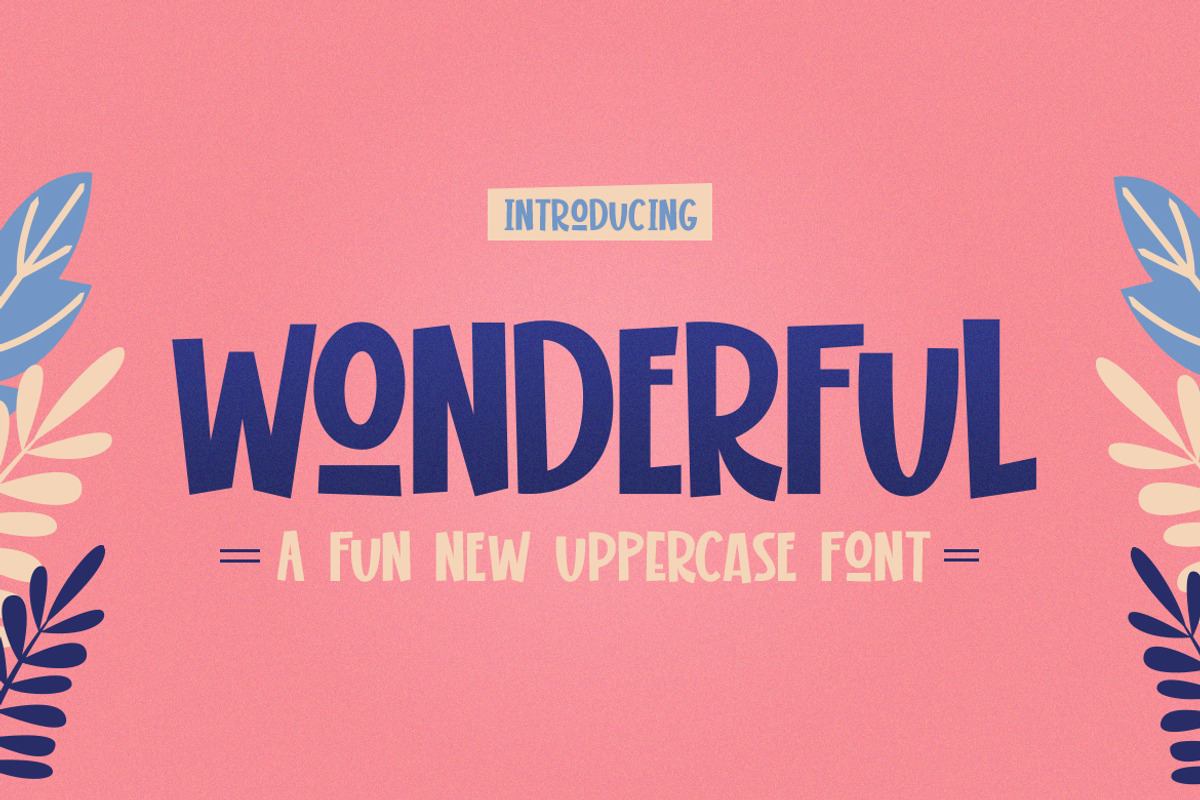
Wonderful Display Font Free Download is a bold and eye-catching typeface crafted to make your designs truly stand out. With its playful curves, elegant shapes, and modern flair, Wonderful is perfect for branding, posters, headlines, magazine layouts, packaging, and social media graphics that need a fresh, expressive touch.
Blending retro inspiration with contemporary style, Wonderful Display Font Free Download brings character and charm to any project. Its unique letterforms are great for making statements—whether you’re designing for fashion, lifestyle, or editorial content.